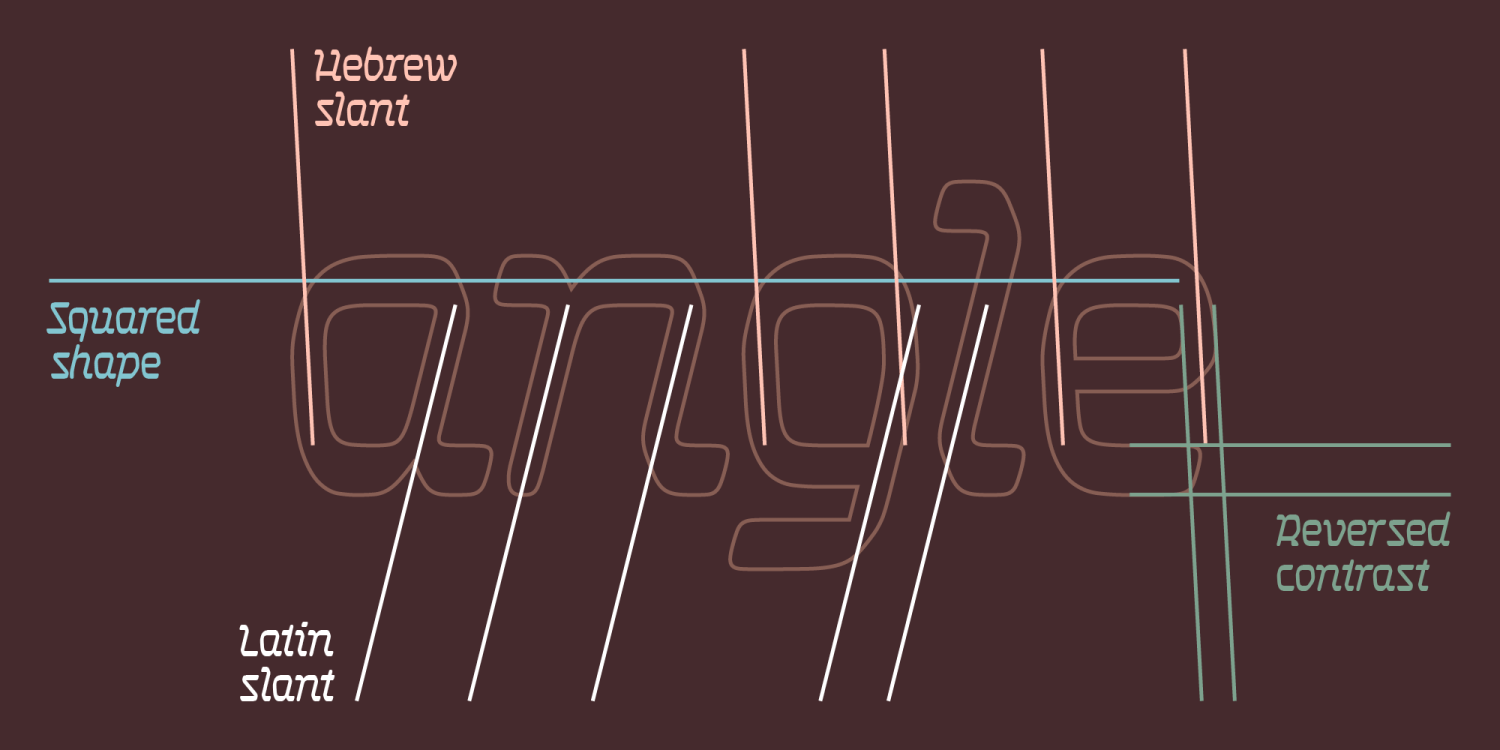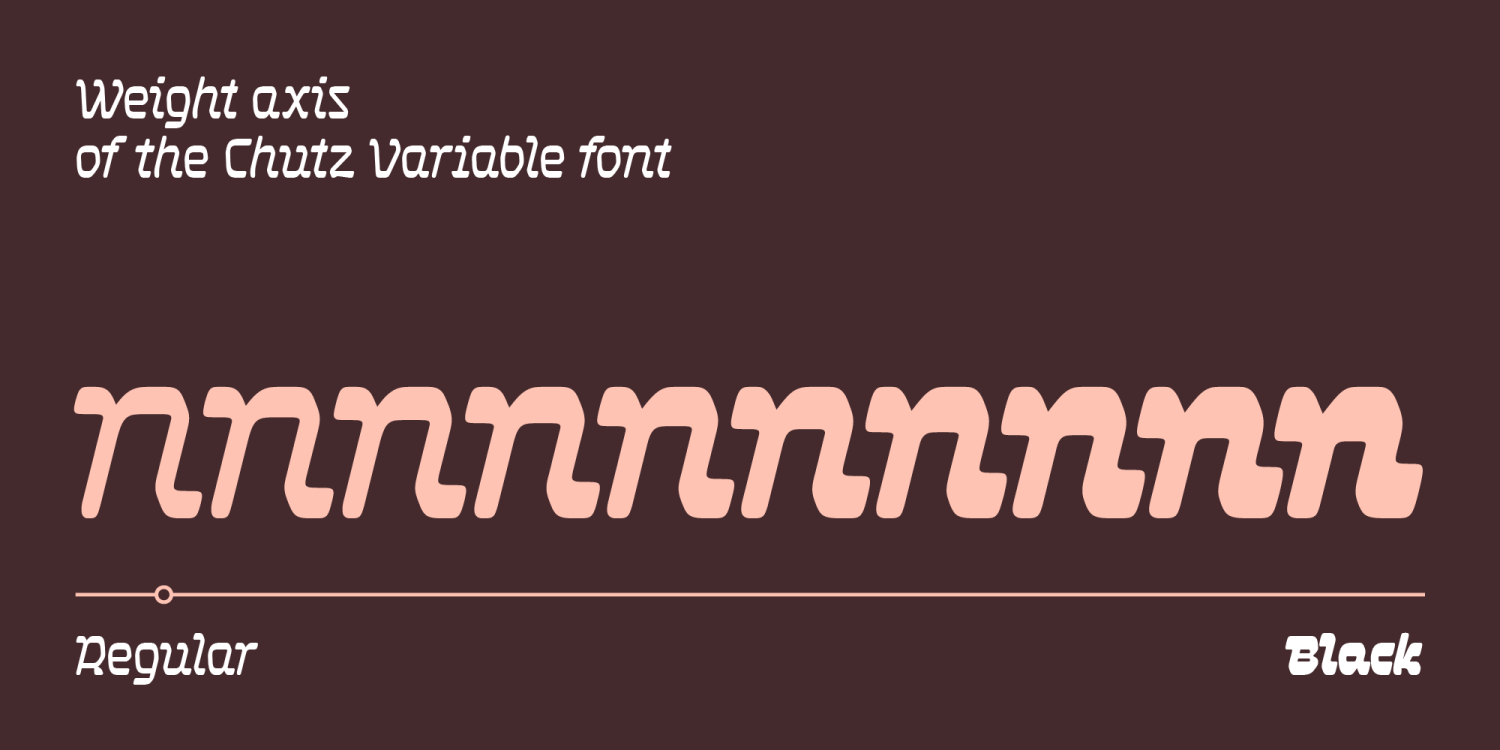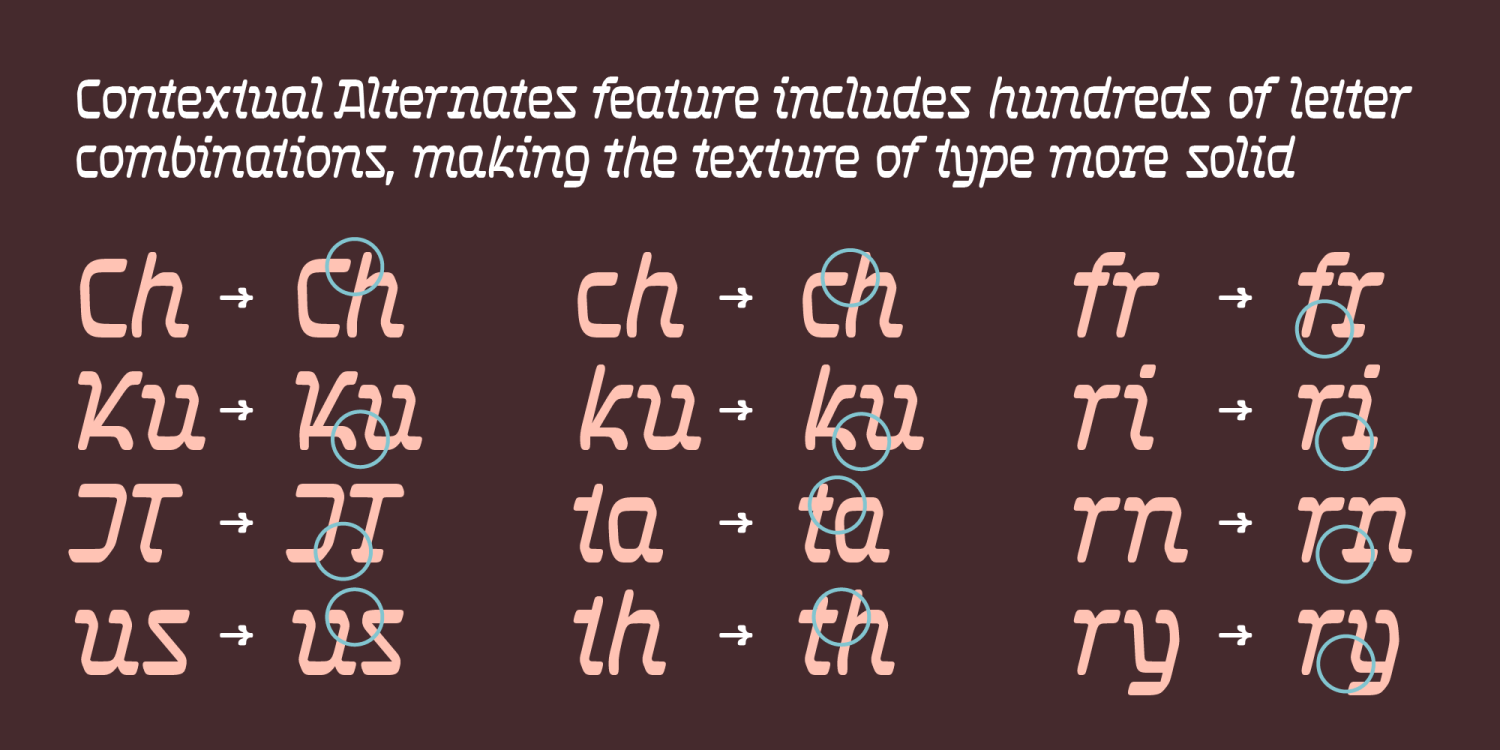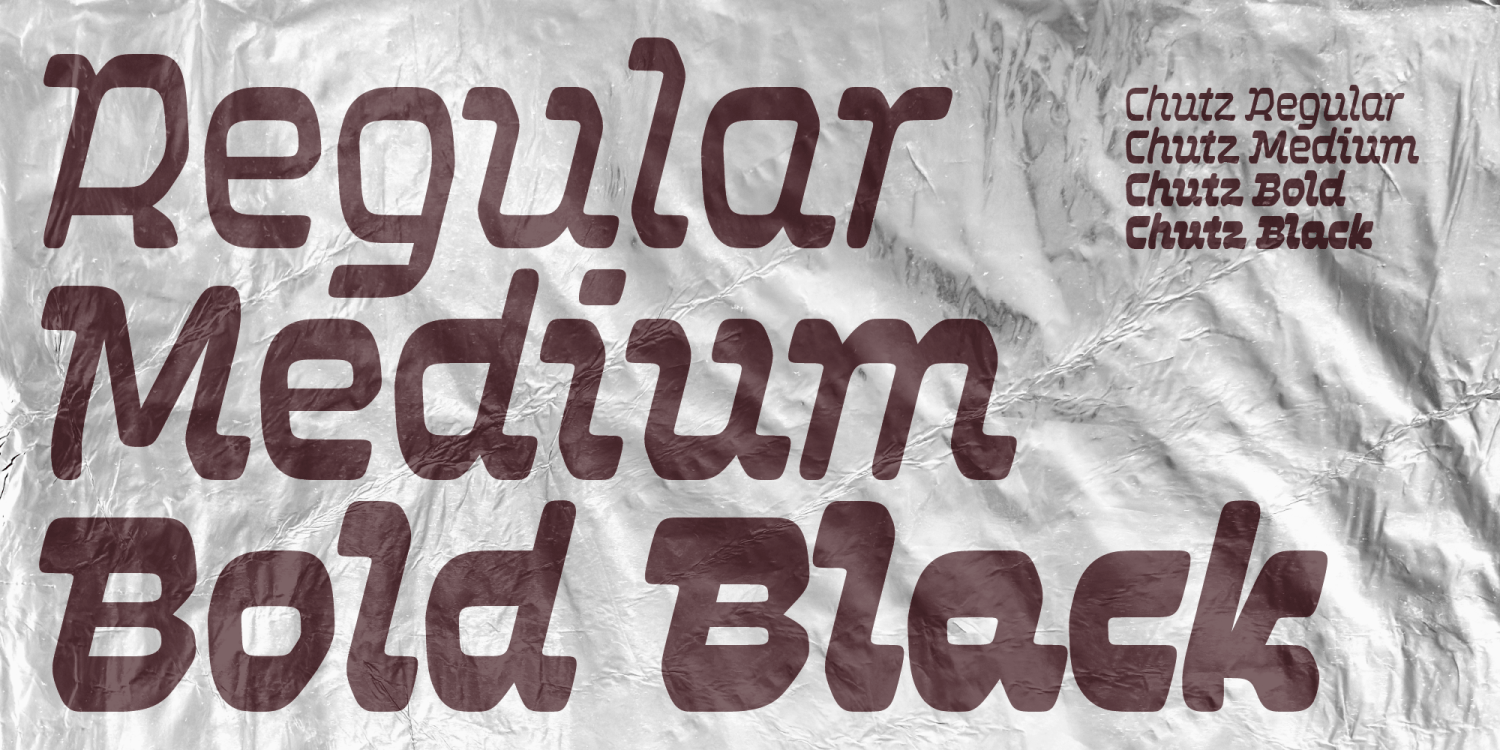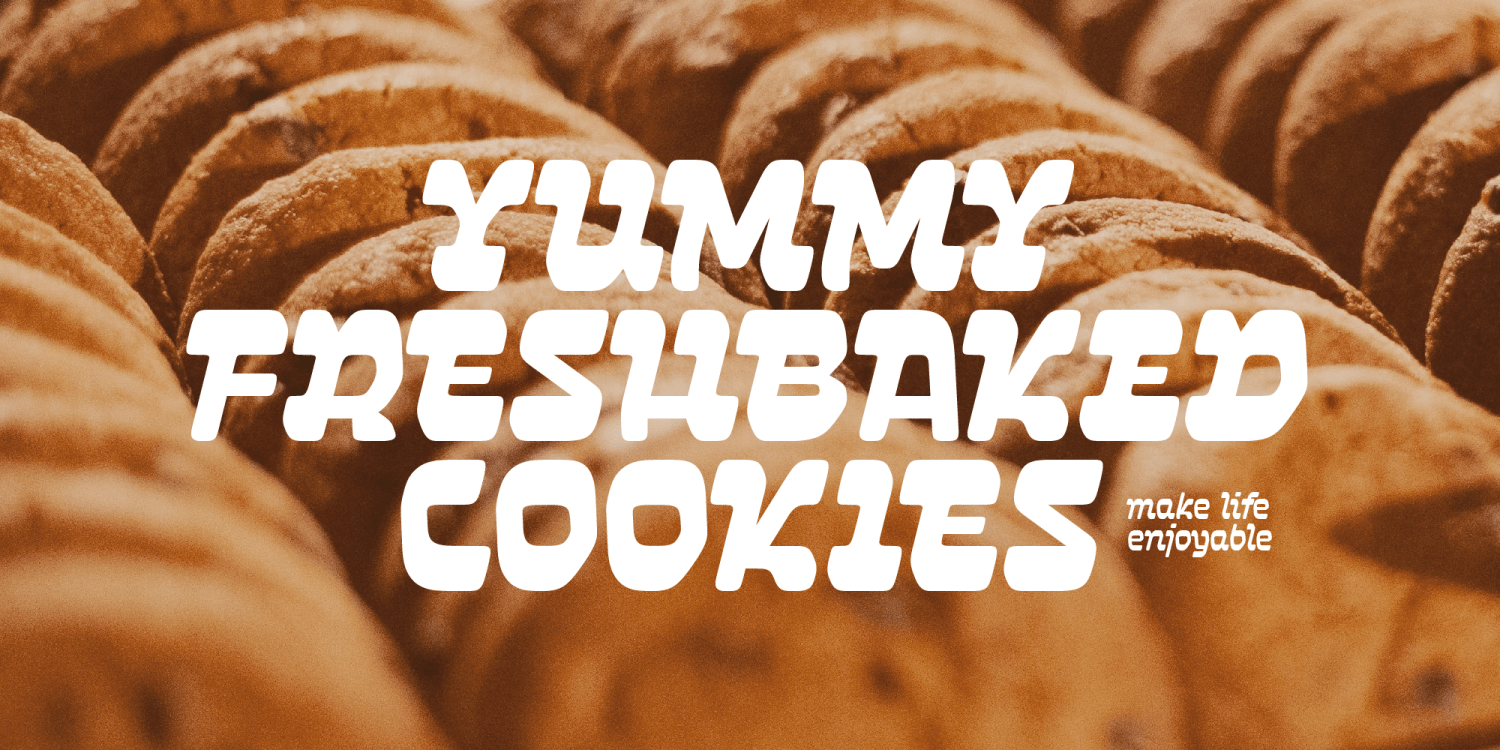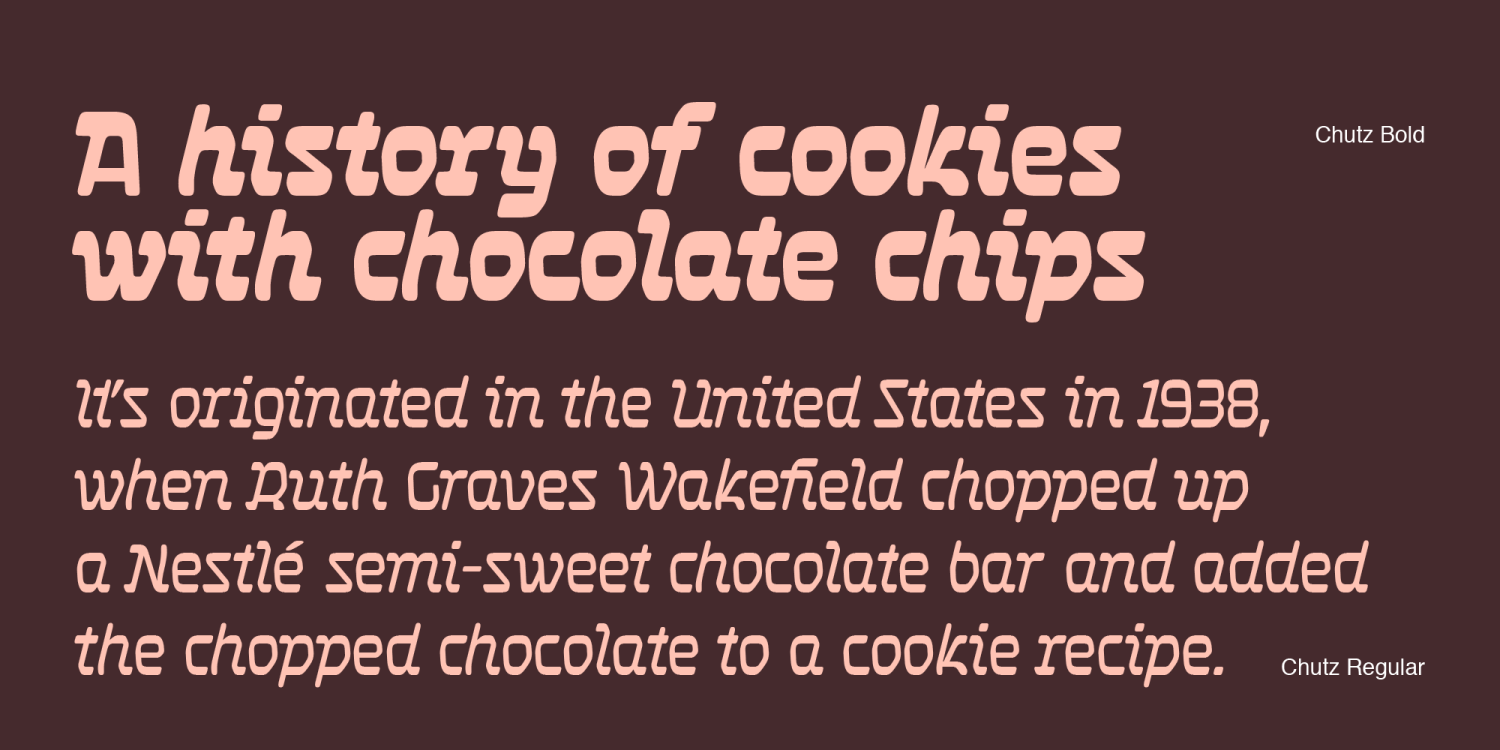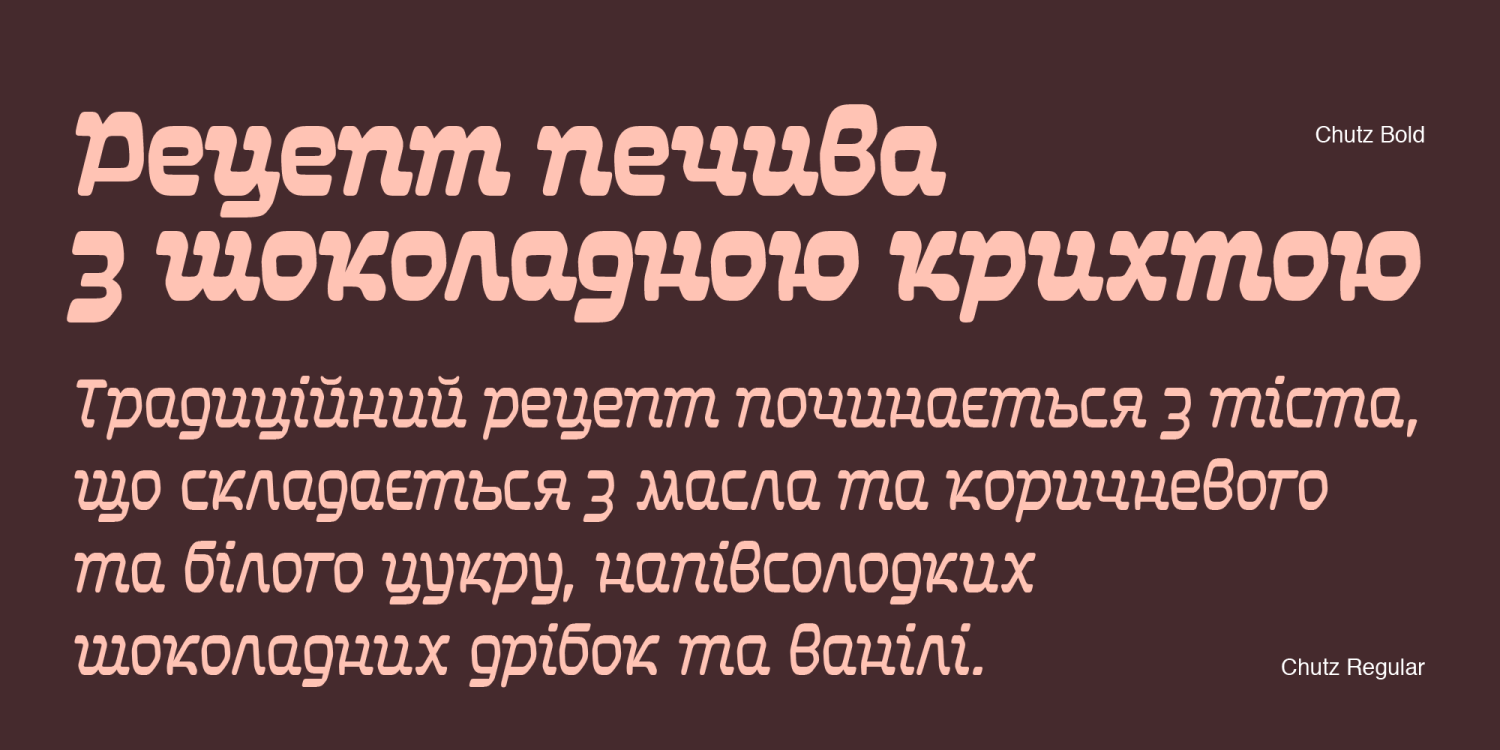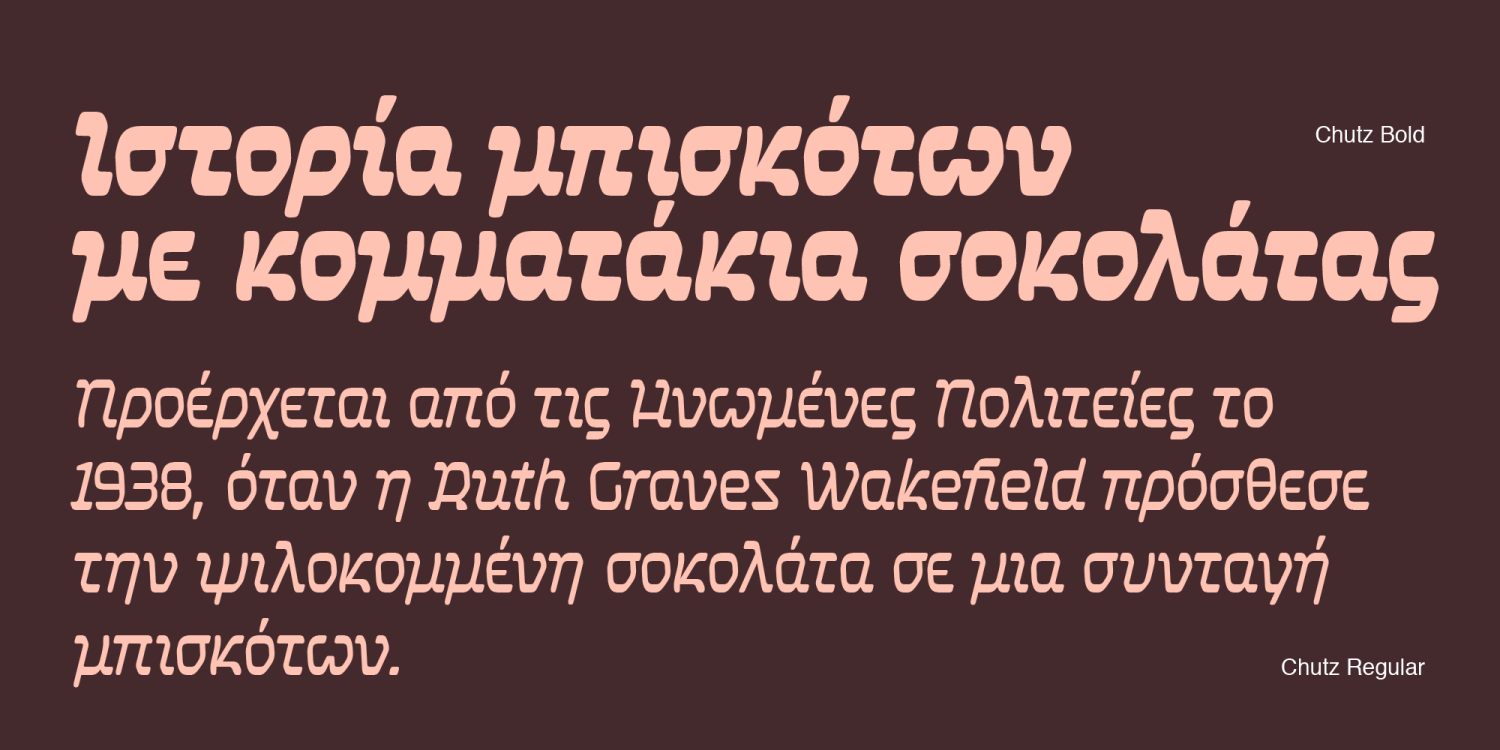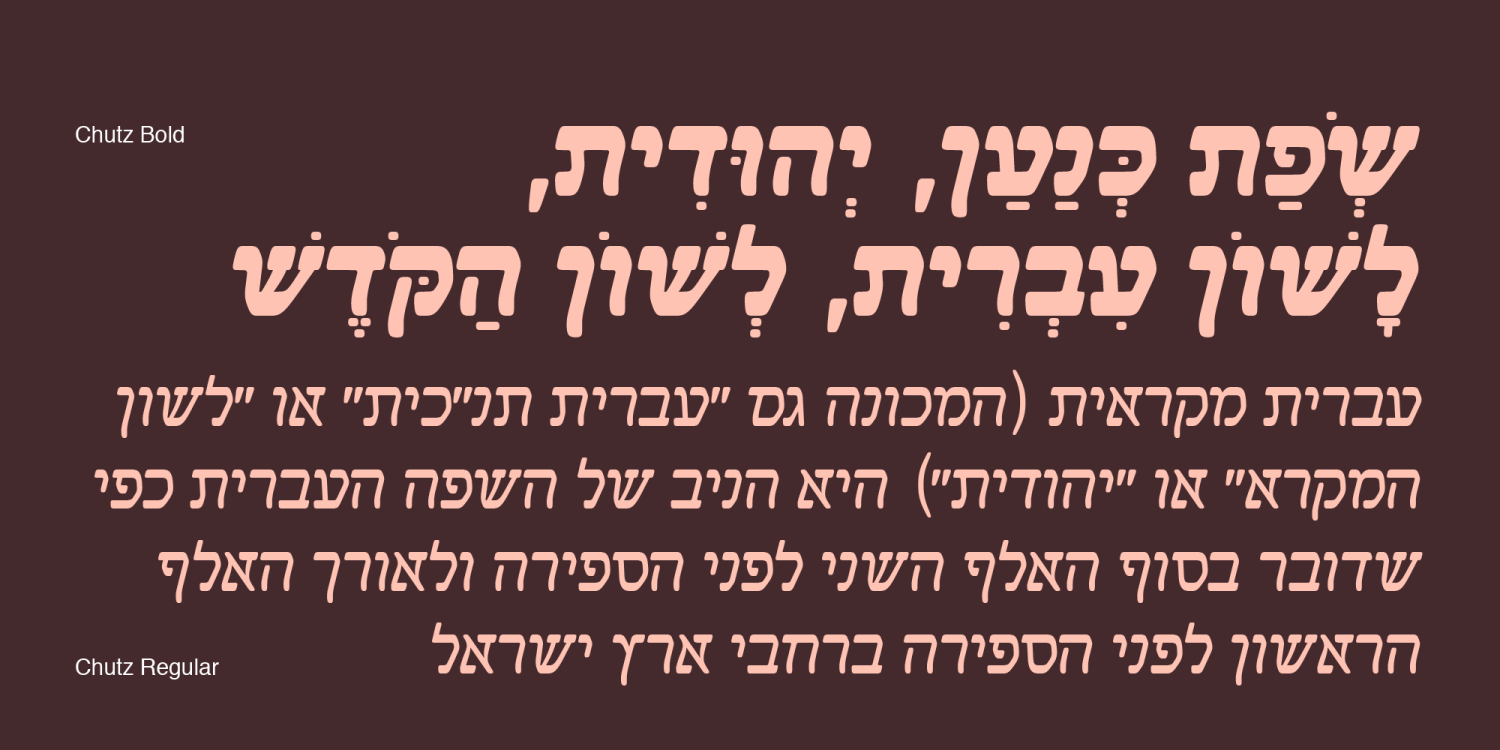
Chutz
Font Family by Michael Rafailyk
Chutz is an audacious slanted typeface with horizontal contrast and horizontally oriented strokes.
The typeface has three purposes – to feel Jewish, audacious, and delicious. To convey the feeling of Hebrew in Latin, Greek and Cyrillic script, such means as horizontal contrast (opposite of Latin) where horizontal strokes are thicker than vertical ones, and horizontally directed calligraphic strokes inherent in Hebrew script which make the letters more square, are used. To convey associations of deliciousness and to look like dough (in bolder weights), the design received soft details and rounding and saturated typographic color. To convey boldness and audacity, the structure of the letters received a different angle of slant for different letters. For example, most letters have a Latin slant (to the right), and other letters such as CGOQabcdegopqy have a typical Hebrew slant (to the left). Such a combination of different slants gives the typeface a complexity of the character ready for unexpected daring actions.